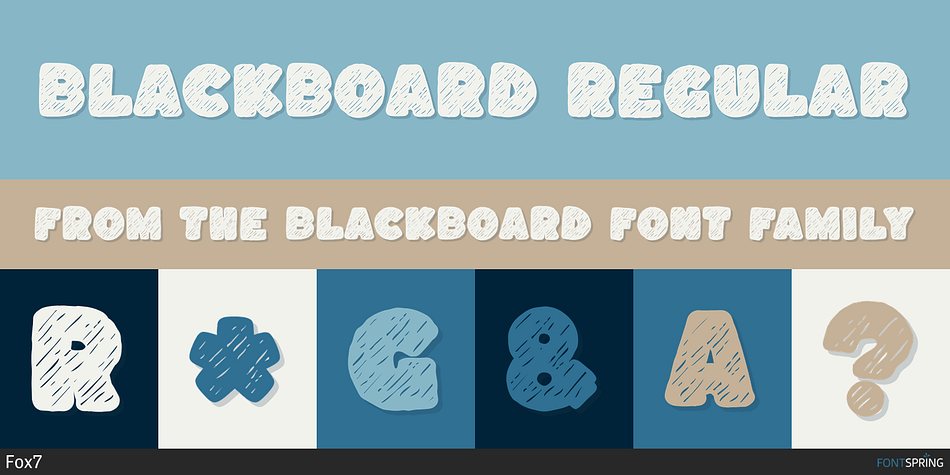
Blackboard Regular
Blackboard is a font family published by Fox7.
Blackboard Fonts are Display fonts that are uniquely designed and fun. font suited for kids, or school themes. Whether you’re using it for crafting, playful restaurant menus, digital designing, presentations, or greeting card making, it’s perfect!. And It can easily be matched to an incredibly large set of projects, so add it to your creative ideas and notice how it makes them stand out!